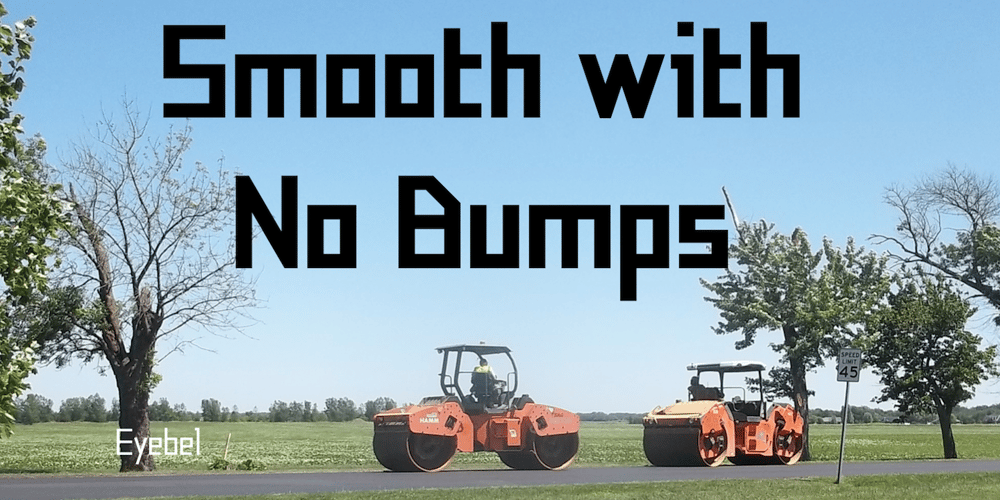
Eyebel Font Family was designed by Robert Schenk and published by Ingrimayne Type. Eyebel contains 11 styles and family package options. Eyebel was an attempt to form letters as simply as possible using only straight lines but still have them legible. The family is low contrast and has a boxy look. Eyebel-Ruff was formed by randomly moving control points. None of these faces have any curves.